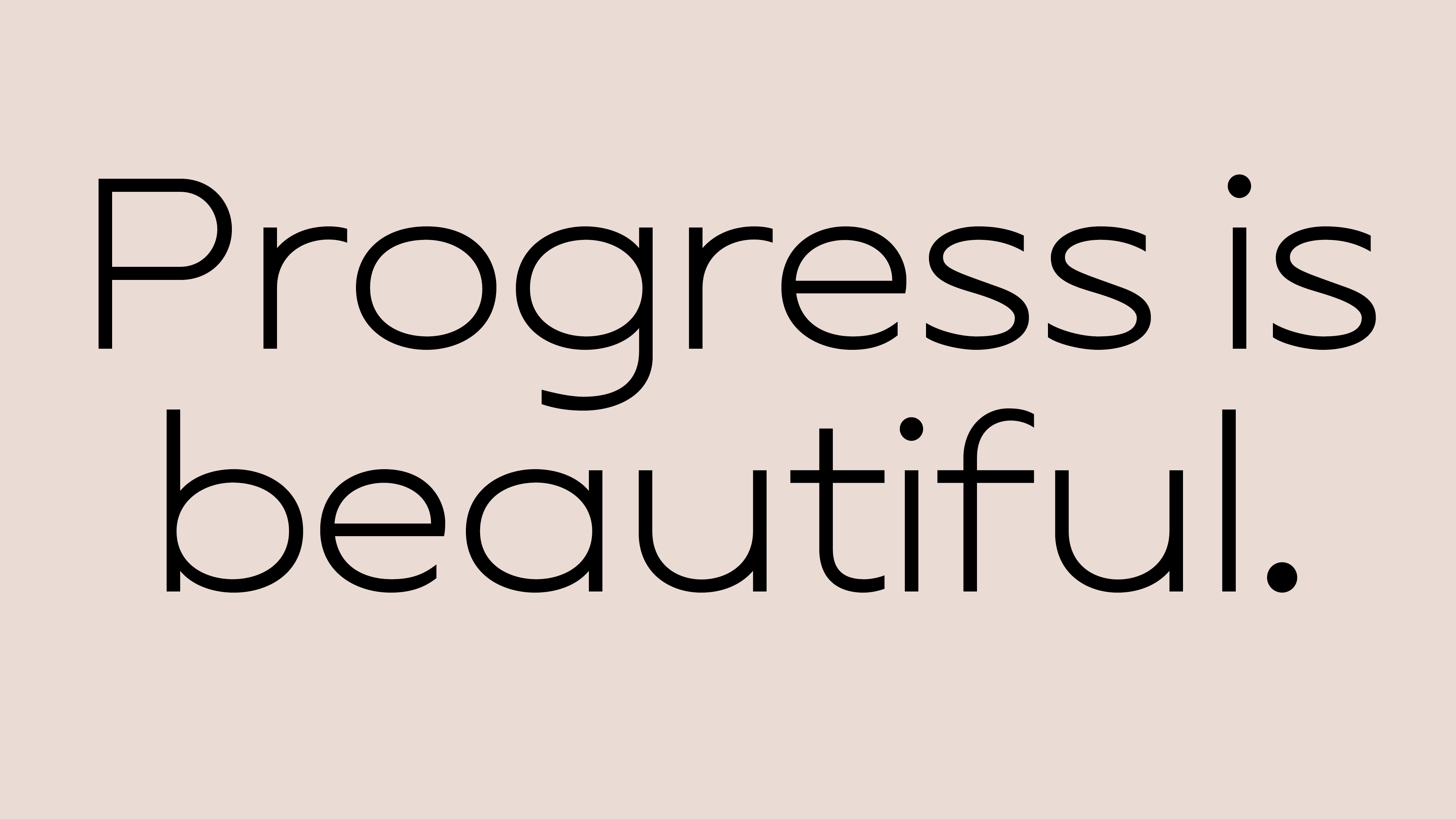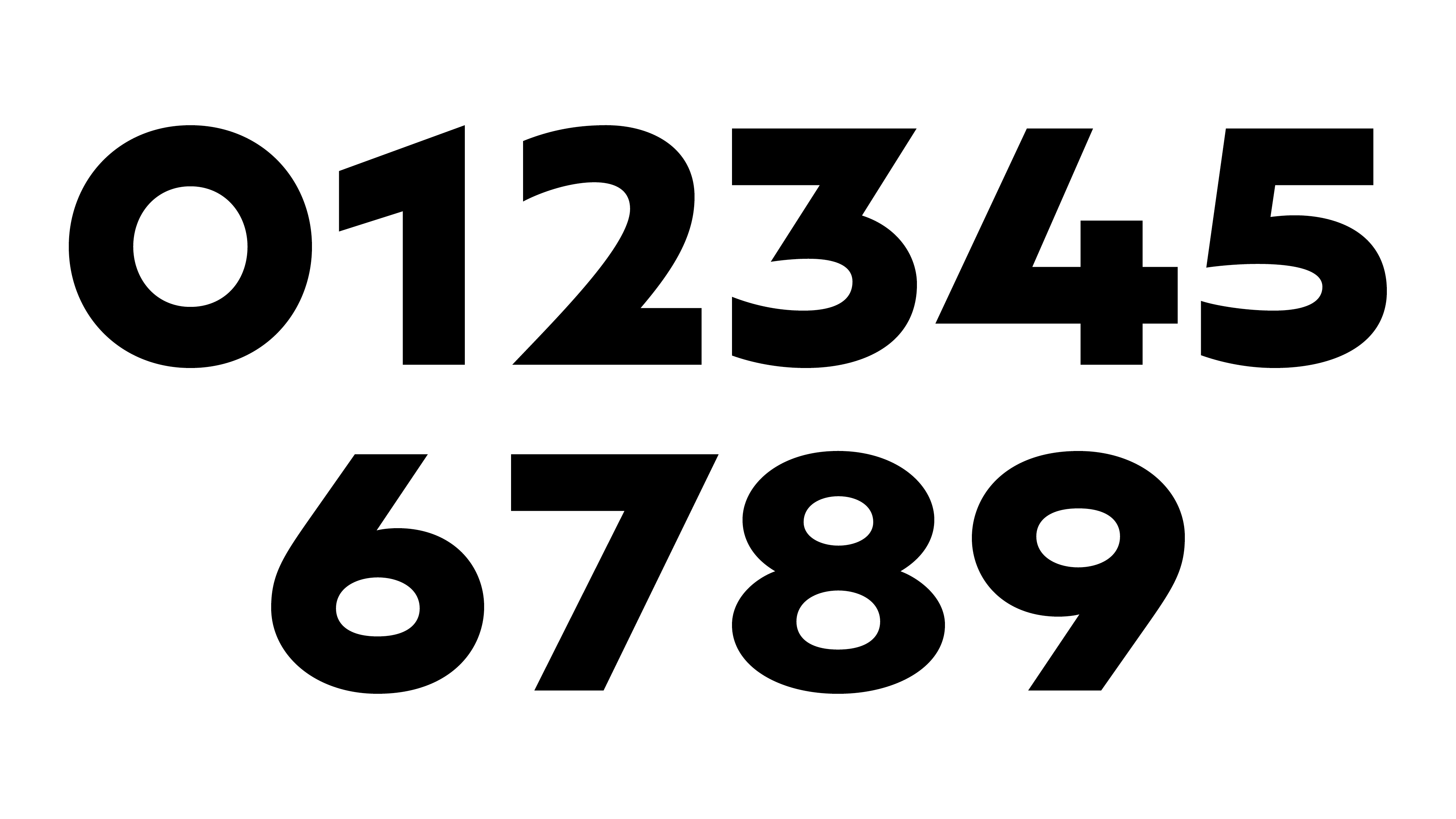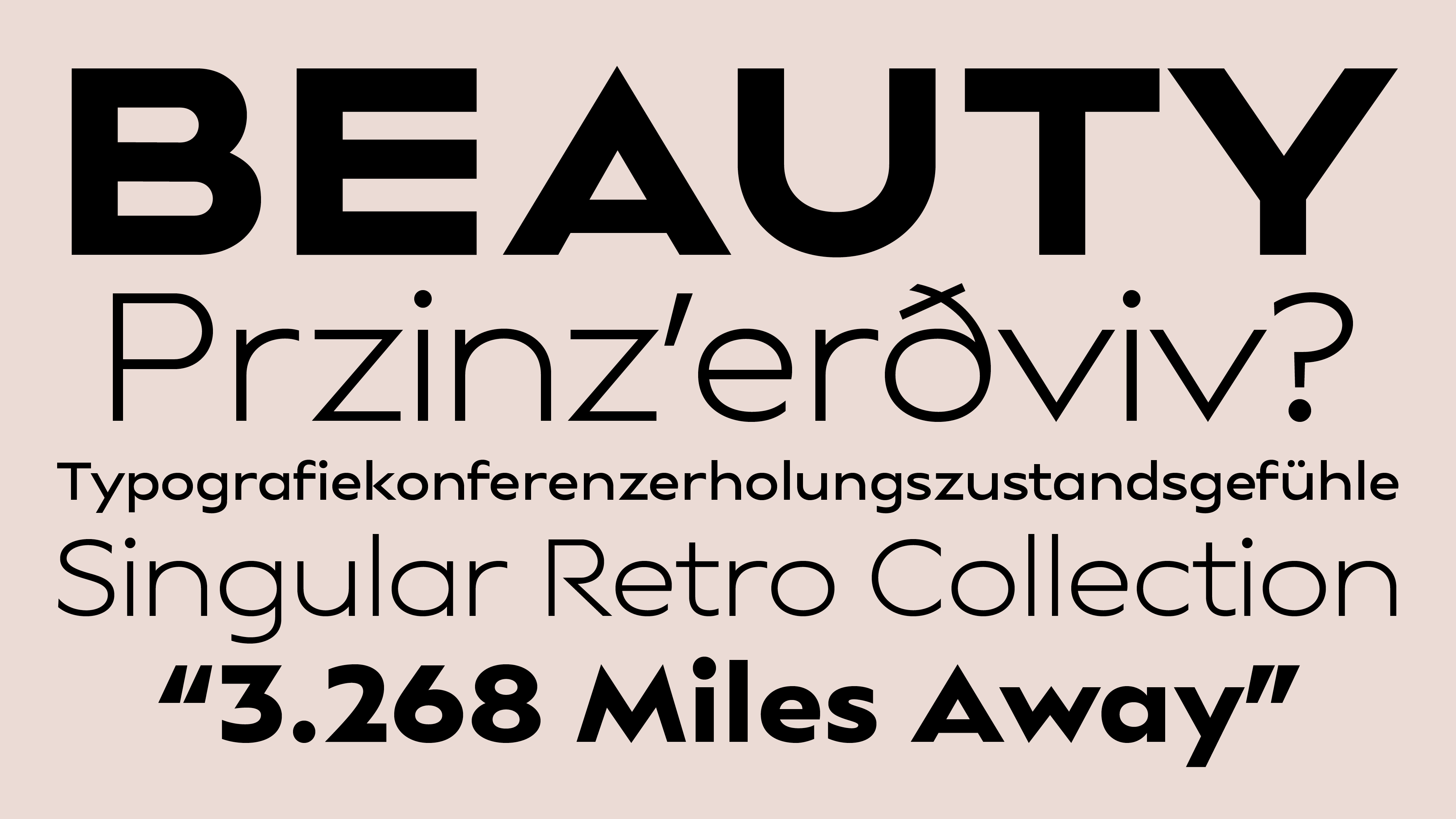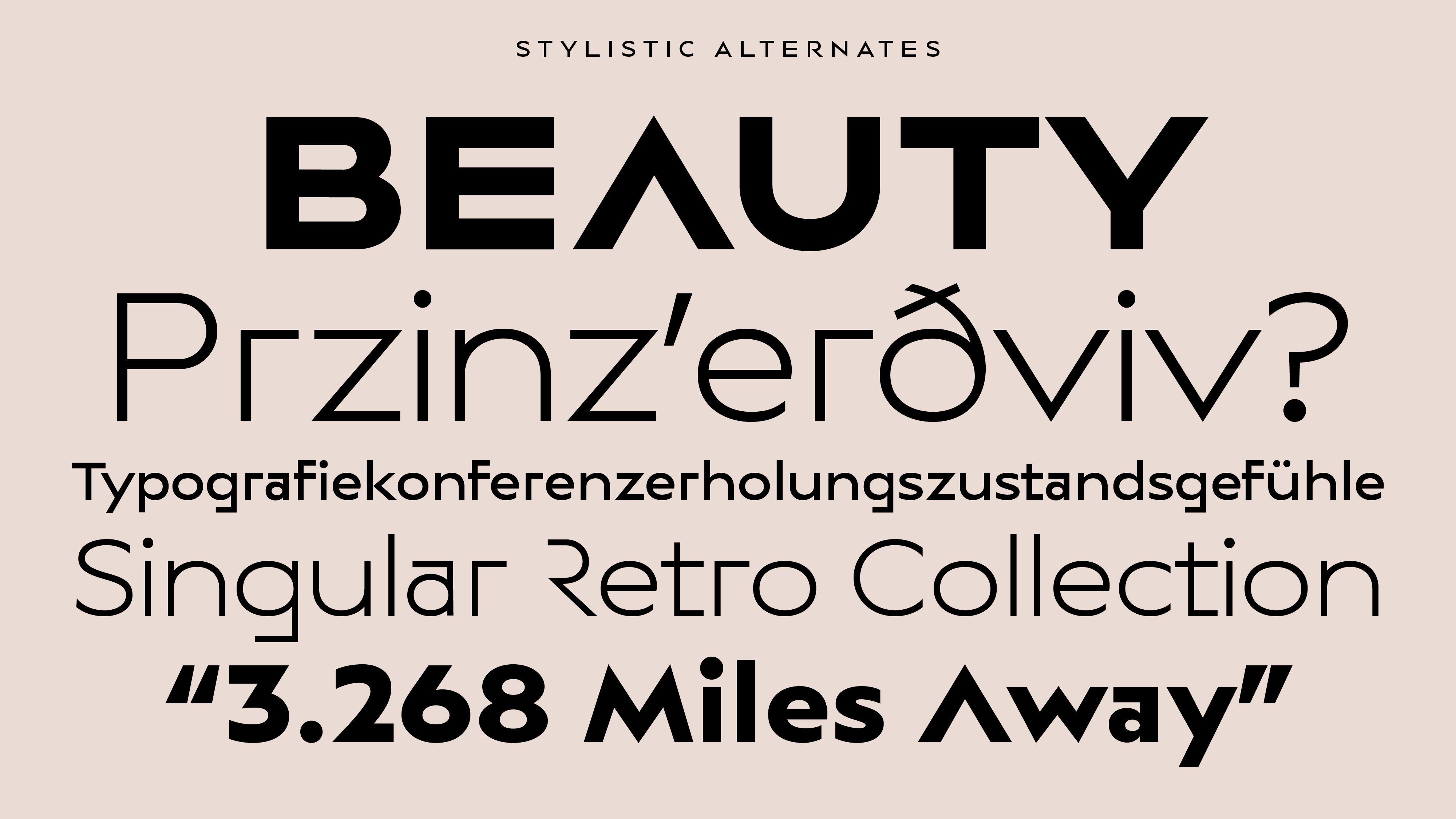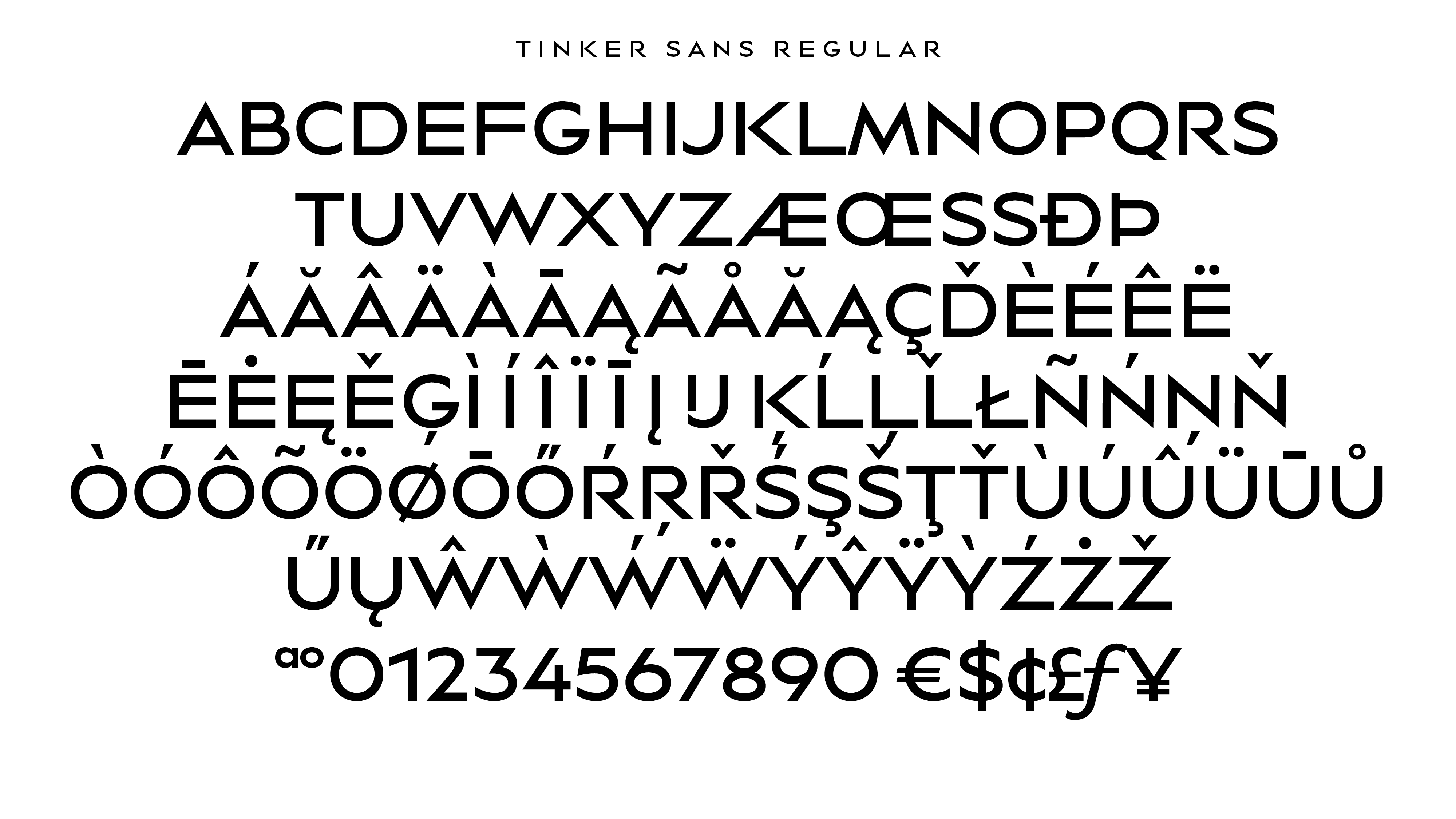
A custom typeface family for the branding of KENT, an American brand of cigarrettes.
Kent is an American brand of cigarettes, currently owned and manufactured by R.J. Reynolds Tobacco Company in the United States and British American Tobacco elsewhere. The brand is named after Herbert Kent, a former executive at Lorillard Tobacco Company.
The concept
Tinker Sans is a contemporary sans-serif typeface family inspired by the KENT logo’s four letters. It artfully merges the timeless aesthetics of a classic geometric sans-serif with a twist that embraces beauty in evolution. This meticulously crafted typeface family embodies the intersection of design and technology, where beauty thrives. These complementary aspects synergize, blurring the lines between aesthetics and purpose. Featuring three weights and two sets of alternate characters, Tinker Sans adds layers to packaging and will serve for the brand communication at a global level, enhancing their visual appeal and giving more layers to the packaging and communication campaigns.
Type designer: Laura Meseguer